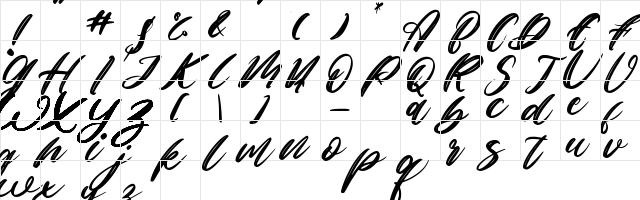
Complete Christmas Philosopher Regular glyph index. Displaying only characters natively supported by Christmas Philosopher Regular font.
Christmas Philosopher is a composed and adaptable typeface that performs quietly and consistently across a wide range of design contexts.